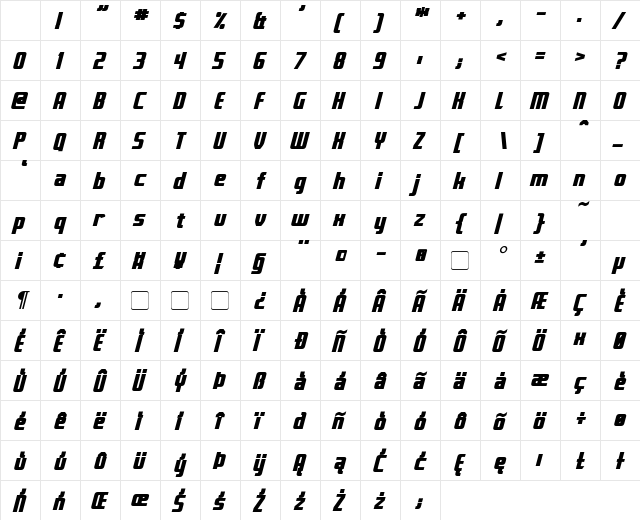
Fontana is a composed and adaptable typeface that performs quietly and consistently across a wide range of design contexts. The slanted form adds forward momentum and visual energy. Its bold stroke weight gives it real presence on the page.
Pro Tip: Use Fontana for emphasis, pull quotes, and subheadings where its slanted energy can add rhythm to the layout.